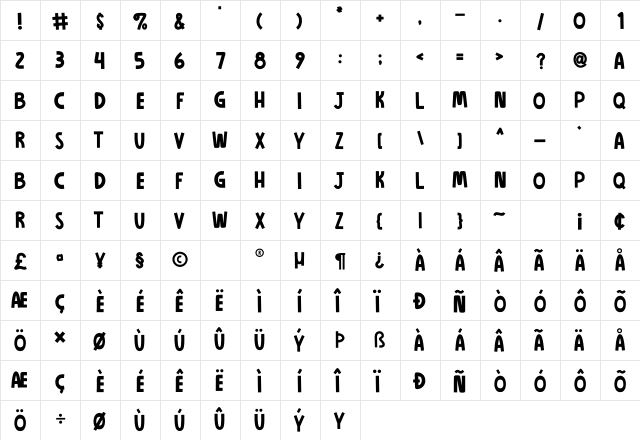
ROAD TO JUSTICE Regular
| Designer | The Docallisme |
Design Context for ROAD TO JUSTICE Typeface
ROAD TO JUSTICE takes a measured approach to typography — its balanced proportions and neutral character make it a reliable workhorse for both digital and print work.